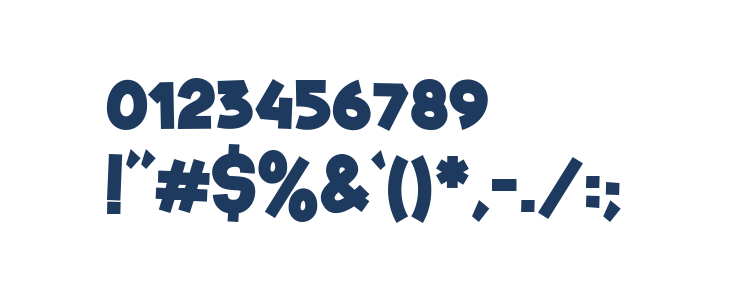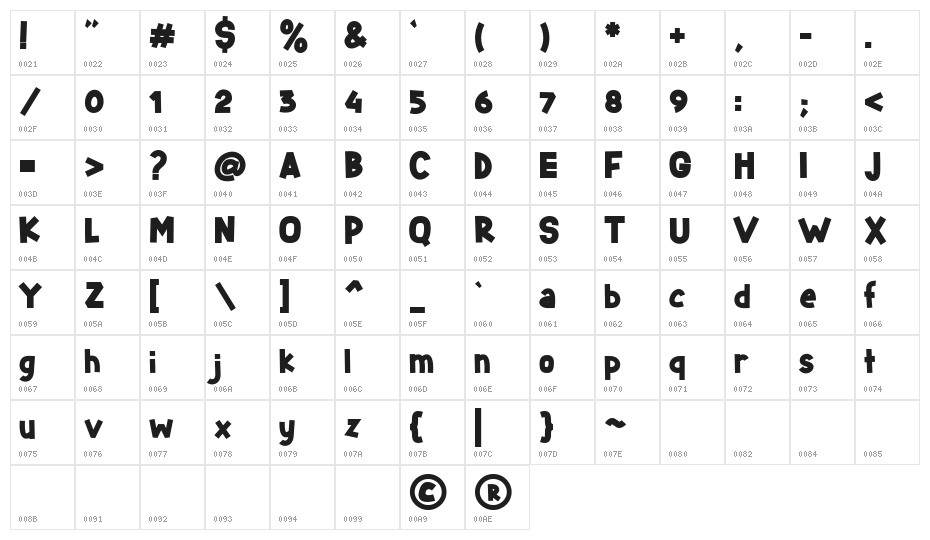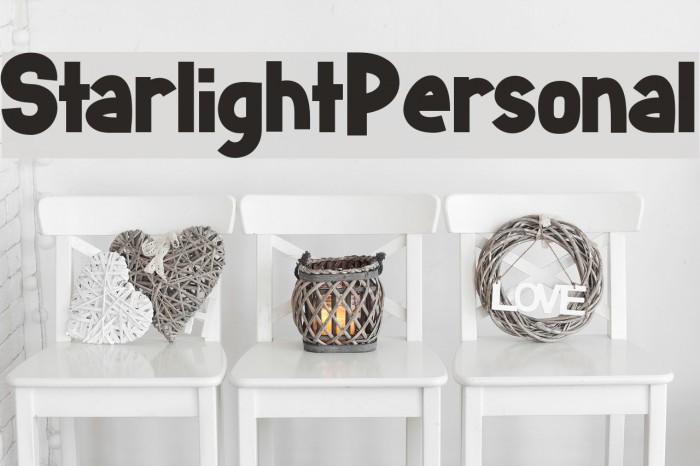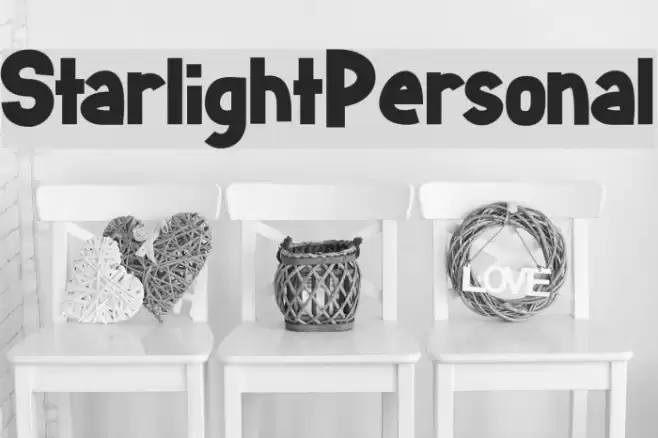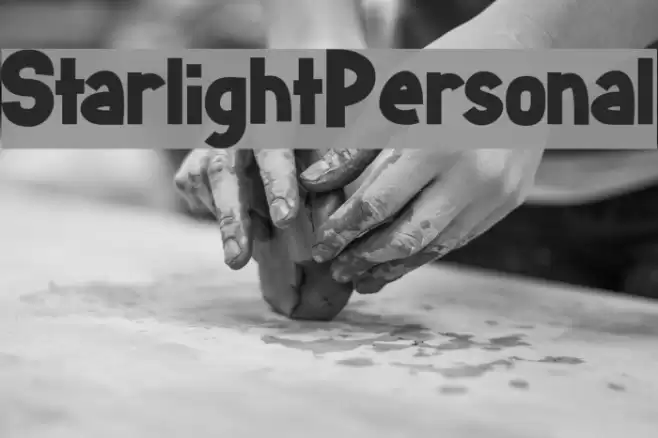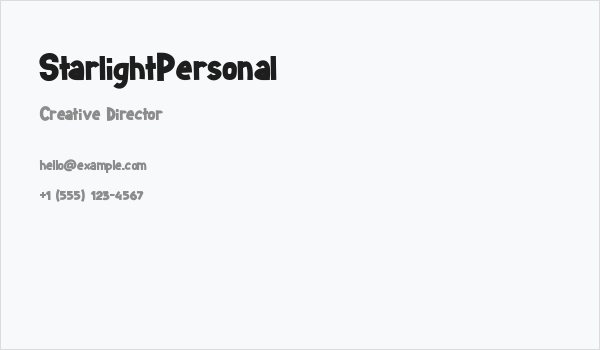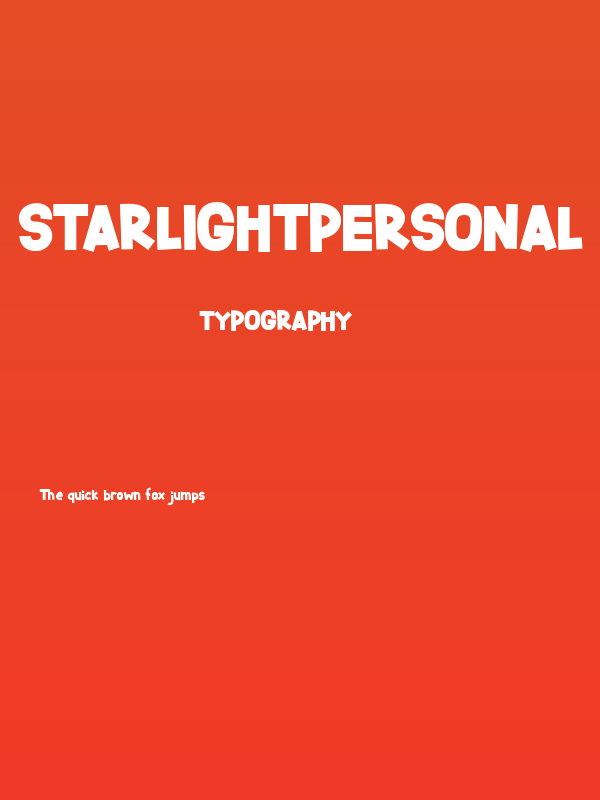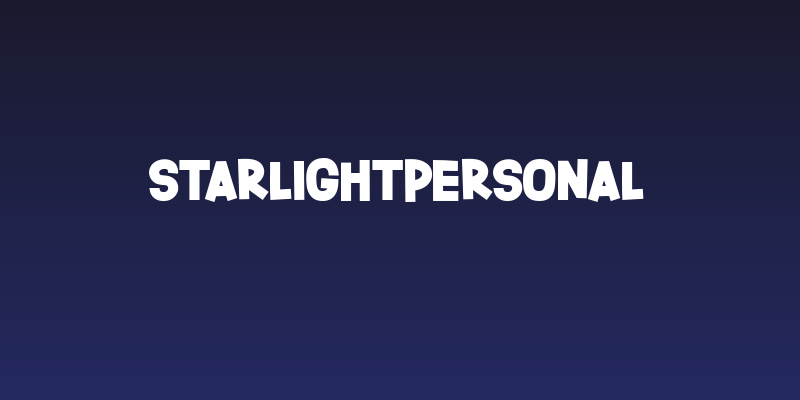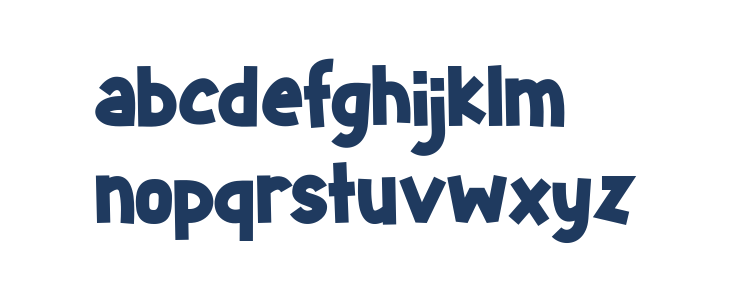
StarlightPersonal Font
StarlightPersonal Description
This font features bold, rounded characters with a playful and friendly appearance. The letters are thick and uniform, offering a strong presence on the page. The rounded edges and consistent stroke width give it a soft, approachable feel, making it ideal for designs that aim to be inviting and engaging. The numerals and special characters maintain the same boldness, ensuring a cohesive look across all text elements. Its simplicity and clarity make it versatile for various design applications.
| Proposed Projects | Ideal for children's books, playful branding, posters, and social media graphics. |